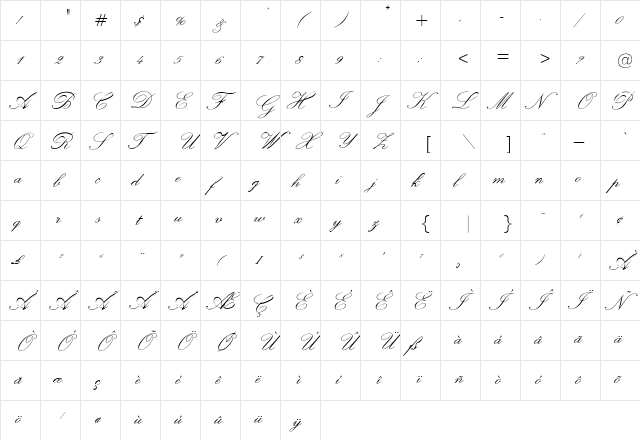
OPTIExcelsiorScript Regular Font Preview
OPTIExcelsiorScript Regular
OPTIExcelsiorScript Regular Font Details
Design Context for OPTIExcelsiorScript Typeface
OPTIExcelsiorScript brings a calligraphic fluidity to the page — its connecting strokes and expressive curves give it an unmistakably human quality.
Font Pairing: Combine OPTIExcelsiorScript with a simple geometric sans for maximum contrast — the tension between flowing curves and clean structure is a classic typographic pairing.
Pro Tip: Use OPTIExcelsiorScript for short runs of text — names, titles, or taglines. Extended body copy in script faces tires the eye quickly.